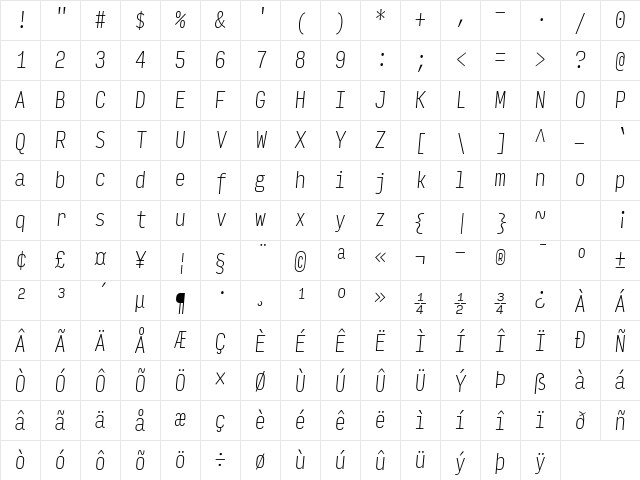
Input Mono Compressed Thin Italic
Style: Thin Italic
Foundry: David Jonathan Ross and The Font Bureau
Designer: David Jonathan Ross
Design Context for Input Mono Compressed
Input Mono Compressed uses fixed-width spacing throughout, giving it the structured, systematic character associated with coding environments and technical documentation. The slanted form adds forward momentum and visual energy. Its slender proportions lend an understated elegance to any composition.
Pro Tip: Use Input Mono Compressed with slightly increased line-height for extended reading - fixed-width spacing can feel dense in longer passages without extra breathing room.